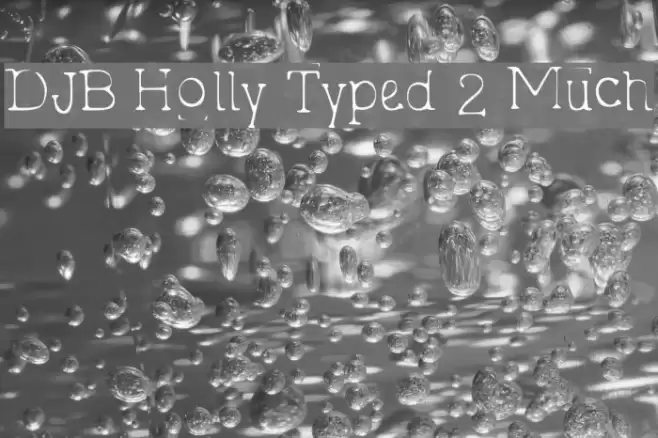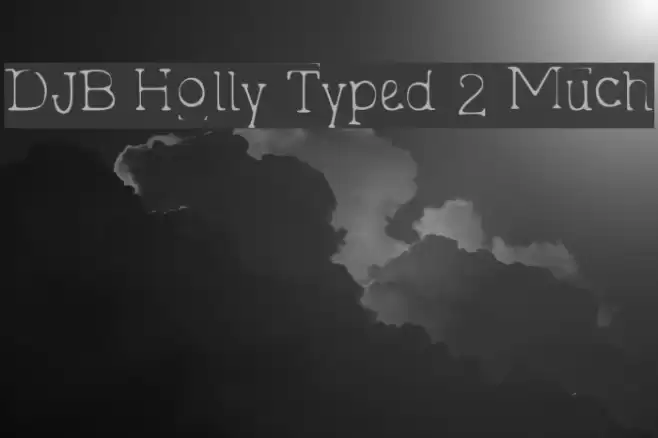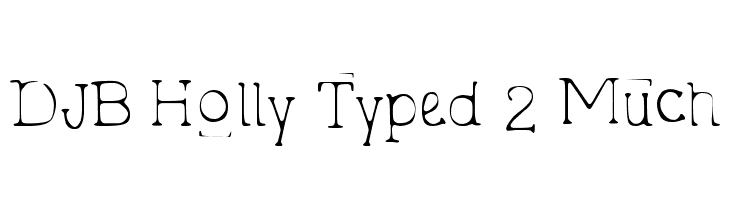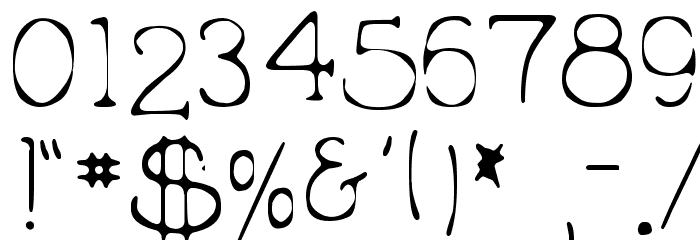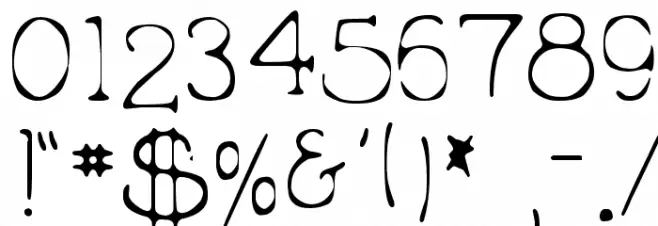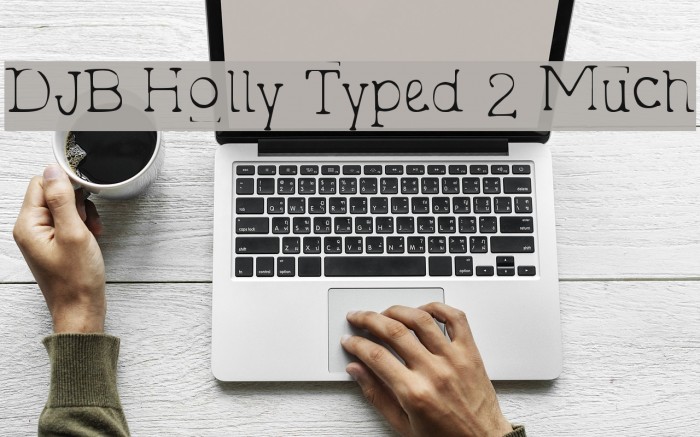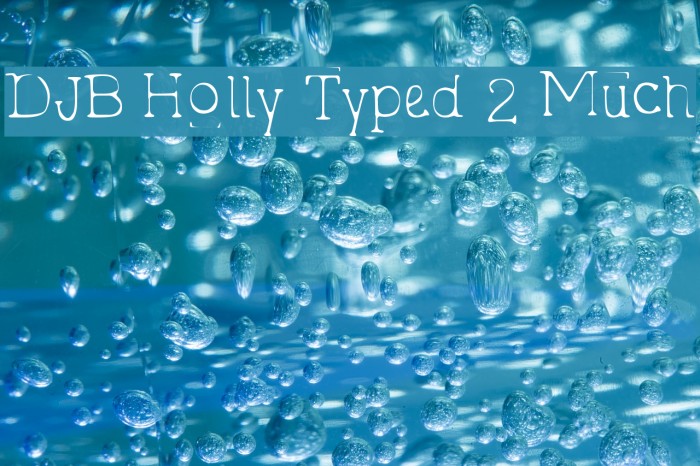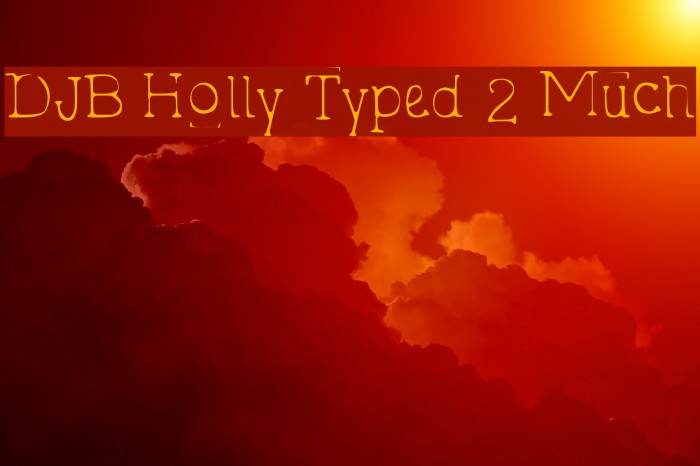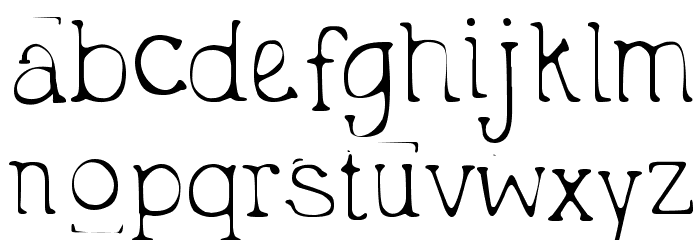
DJB Holly Typed 2 Much Font
DJB Holly Typed 2 Much Description
This font features a playful and whimsical style with a hand-drawn appearance. The characters have a slightly uneven baseline, giving them a casual and informal look. The strokes are varied, with some letters having thicker lines and others appearing more delicate. The uppercase letters are bold and prominent, while the lowercase letters maintain a consistent flow. The numerals are distinct and easy to read, and the special characters add a quirky touch to the overall design. This font is perfect for projects that require a fun and approachable aesthetic.
A playful, hand-drawn font with a whimsical and casual style from Uncategorized fonts.
- Proposed Projects: Ideal for children's books, greeting cards, playful branding, and social media graphics.
- Use Case: Headlines, Logos, Informal Text